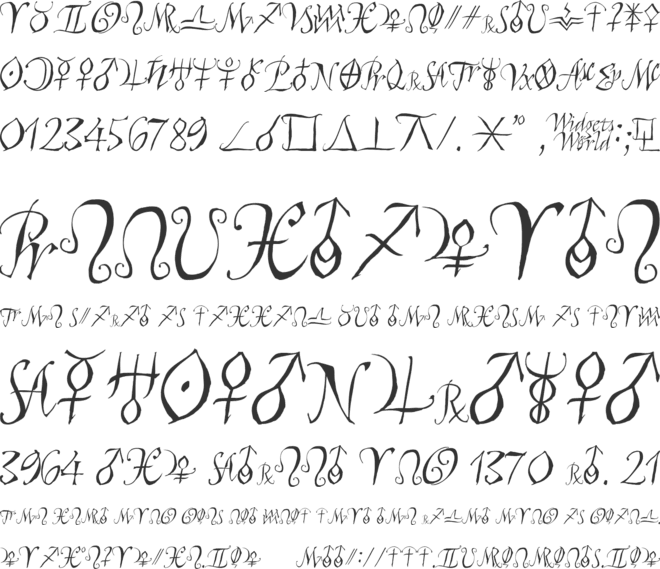
Astro Script Font Family
Jason Davies
AstroScript is 4th in the series. Inspired by the font Aspera ITC. This font includes symbols for the Asteroids and the Quindecile aspect.